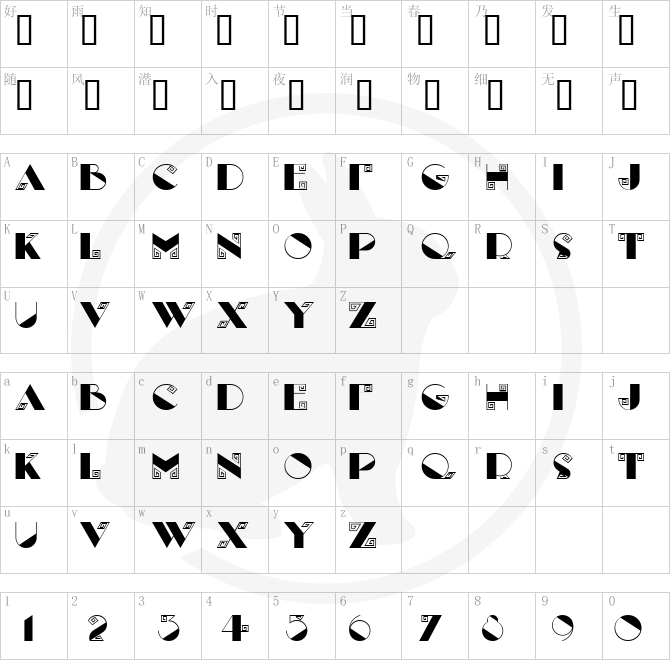
- Font Name:Labyrinth Capital
Labyrinth-Capital.ttf is a very beautiful artistic font, Labyrinth-Capital.ttf is widely used in the design and printing of various books and pictures,Labyrinth-Capital.ttf has a strong visual impact,Labyrinth-Capital.ttf is a commonly used font in newspapers, magazines and books, and is used in posters, e-commerce Poster design, store design, logo design, font design and other fields.Labyrinth-Capital.